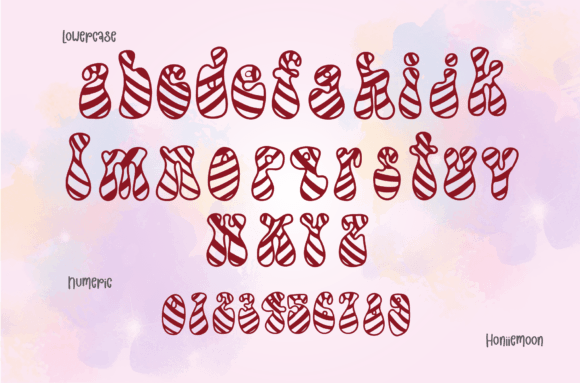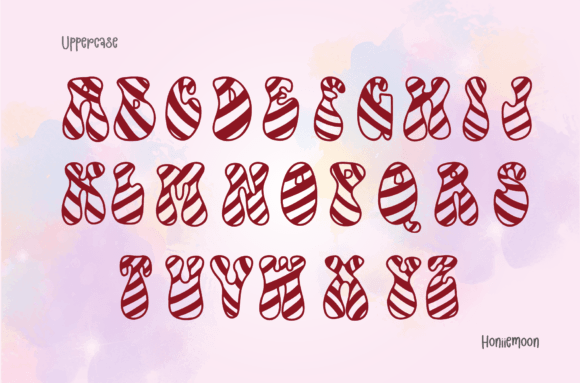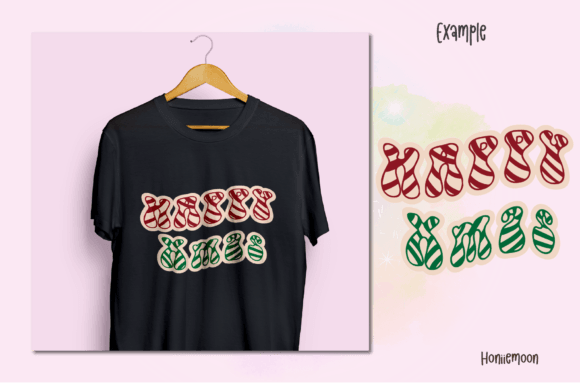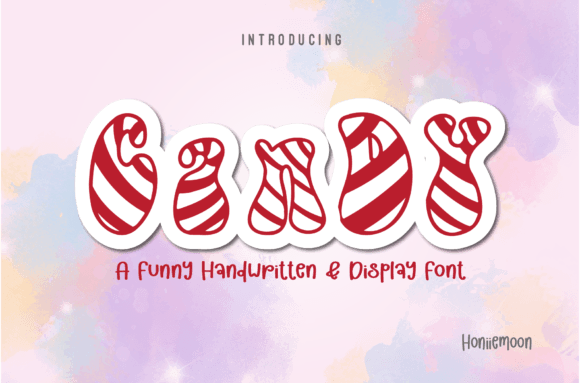
Candy Font: The Sweetest Addition to Your Design Collection
Are you looking for a font that can add a touch of fun and playfulness to your designs? Look no further than the Candy Font! This cool and decorative font is perfect for designers and crafters who want to create eye-catching and engaging projects. In this article, we’ll explore the features and benefits of the Candy Font, and show you how it can enhance your creative ideas.
What is Candy Font?
Candy Font is a decorative font that is designed to look cute and jolly. Its bold and colorful appearance makes it perfect for a wide range of design projects, from party invitations and DIY crafts to social media graphics and website headers. The font’s playful and whimsical design is sure to capture the attention of your audience and leave a lasting impression.
Key Features of Candy Font
• Colorful and Bold: The Candy Font is designed to make a statement with its bright and bold colors. It’s perfect for creating eye-catching designs that pop.
• Cute and Jolly: The font’s playful design makes it perfect for creating fun and engaging projects that appeal to a wide range of audiences.
• Highly Versatile: The Candy Font can be used for a wide range of design projects, from digital graphics to print materials.
Benefits of Using Candy Font
So why should you choose the Candy Font for your design projects? Here are just a few benefits of using this amazing font:
• Adds a Touch of Fun: The Candy Font adds a playful and whimsical touch to your designs, making them more engaging and fun.
• Perfect for Kids’ Projects: The font’s cute and colorful design makes it perfect for kids’ projects, such as party invitations, DIY crafts, and educational materials.
• Great for Social Media Graphics: The Candy Font is perfect for creating eye-catching social media graphics that will grab the attention of your followers.
• Enhances Creativity: The font’s bold and colorful design inspires creativity and can help you come up with new and innovative design ideas.
How to Use Candy Font in Your Designs
Using the Candy Font in your designs is easy! Here are a few tips to get you started:
• Pair it with Other Fonts: The Candy Font looks great when paired with other fonts, such as sans-serif fonts or script fonts.
• Use it for Headings: The font’s bold and colorful design makes it perfect for headings and titles.
• Add it to Your Graphics: Use the Candy Font to add text to your graphics, such as party invitations, flyers, and brochures.
• Experiment with Colors: The Candy Font comes in a range of colors, so don’t be afraid to experiment and find the perfect color for your design.
In conclusion, the Candy Font is a cool and fun decorative font that can add a touch of playfulness and whimsy to your designs. Its bold and colorful appearance makes it perfect for a wide range of design projects, from party invitations and DIY crafts to social media graphics and website headers. With its ease of use and versatility, the Candy Font is a must-have for designers and crafters who want to create eye-catching and engaging projects. So why wait? Add the Candy Font to your design collection today and see how it can enhance your creative ideas!
Get Creative with Candy Font!
Ready to get creative with the Candy Font? Here are a few ideas to get you started:
• Create a party invitation for a kids’ birthday party
• Design a set of social media graphics for a candy store
• Make a DIY craft project, such as a customized mug or t-shirt
• Design a website header for a children’s website